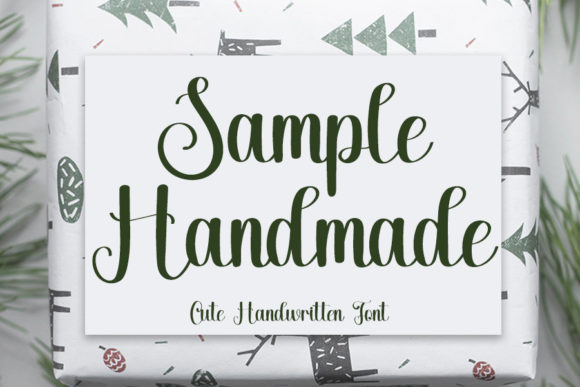
Immerse yourself in a world of exquisite artistry with the Sample Handmade Font, a captivating creation from the visionary designers at Inermedia STUDIO. Inspired by timeless calligraphy, this script font embodies elegance and sophistication, ready to transform your designs into masterpieces.
Crafted with impeccable precision, each stroke of the Sample Handmade Font dances across your screen, leaving a trail of grace and beauty. Its timeless form will elevate your projects with an air of refinement, capturing the essence of classicism while embracing contemporary flair.
Imagine the possibilities as you unleash your creativity with this versatile font. From delicate wedding invitations to captivating logos, from personalized stationery to eye-catching social media graphics, the Sample Handmade Font will effortlessly enhance your creations with its timeless appeal.
Don't settle for ordinary fonts that fail to inspire. Embrace the extraordinary with the Sample Handmade Font, a treasure that will ignite your imagination and elevate your designs to unprecedented heights. Indulge in its timeless beauty and watch as your projects bloom with sophistication and elegance.